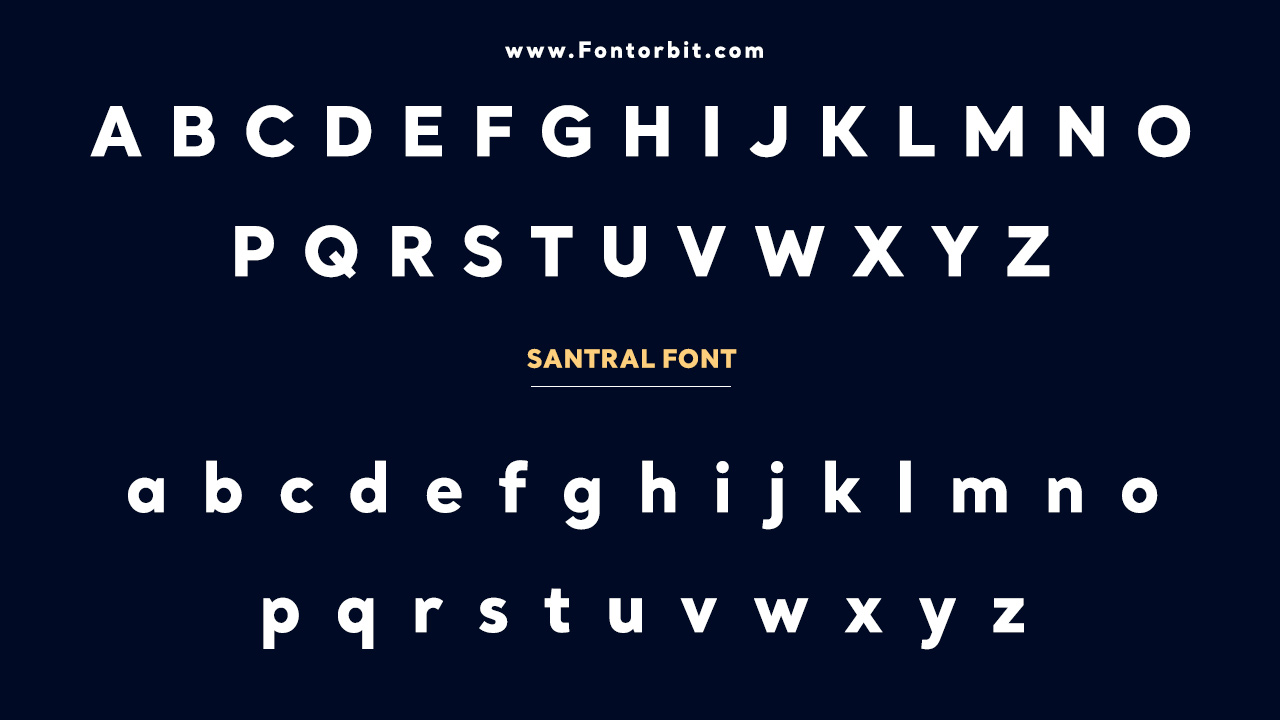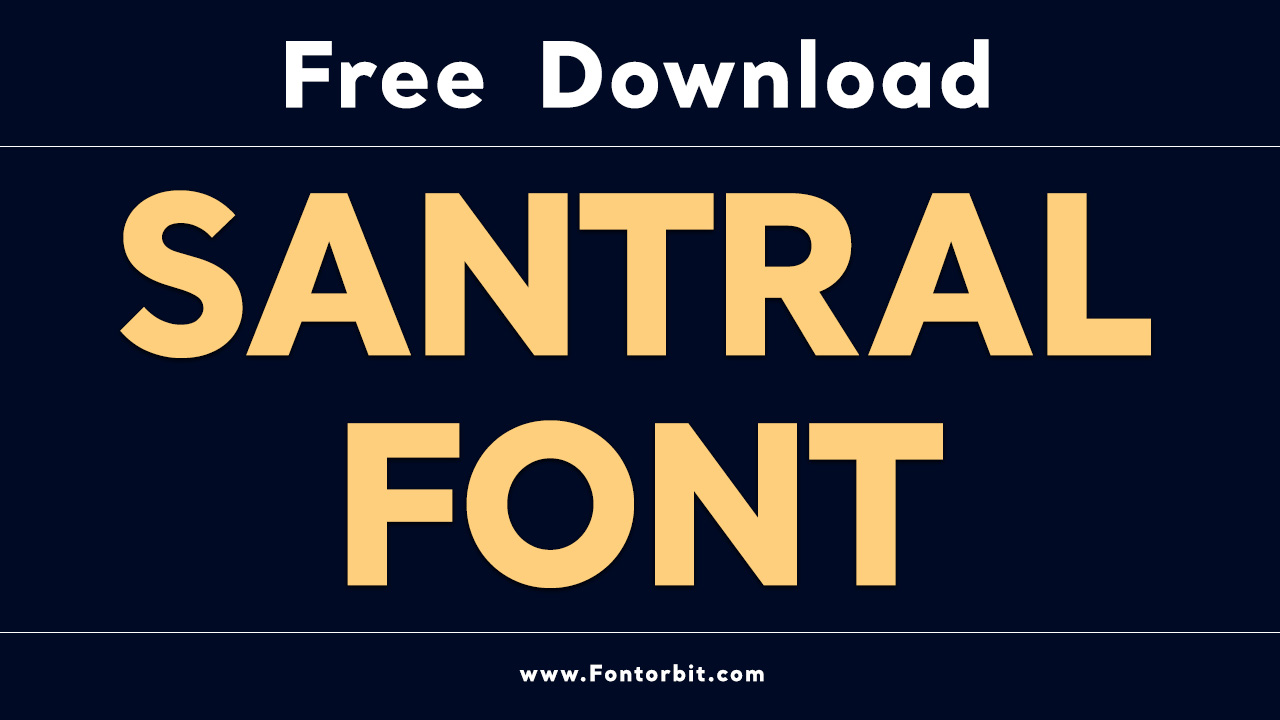
Santral is a modern geometric sans-serif font designed by Taner Ardali and released in 2017. It is part of a large family of weights, making it versatile for both digital and print design. Santral is known for its clean lines, simplicity, and functionality, making it suitable for professional and minimalistic design needs.
Santral Family Includes
The Santral font family is extensive, with over 20 styles available. The typeface ranges from light to ultra-bold weights and comes in italic versions, offering designers great flexibility for various design needs.
- Santral Ultra Italic
- Santral Black Italic
- Santral Black
- Santral Book
- Santral Bold
- Santral Bold Italic
- Santral Book Italic
- Santral Extra Bold Italic
- Santral Extra Light Italic
- Santral Extra Bold
- Santral Extra Light
- Santral Hairline
- Santral Hairline Italic
- Santral Light
- Santral Light Italic
- Santral Medium
- Santral Regular
- Santral Medium Italic
- Santral Regular Italic
- Santral Semi Bold
- Santral Semi Bold Italic
- Santral Thin
- Santral Ultra
- Santral Thin Italic
Notable Uses Of Santral
Santral’s clean and structured style makes it ideal for branding projects, logos, business cards, and user interfaces (UI). Its geometric shapes give it a modern yet timeless feel, suitable for both corporate and creative sectors. Designers often use Santral for tech branding, minimalistic websites, and sleek advertising campaigns.
Santral is well-suited for various professional and creative purposes due to its minimalist yet impactful design. It thrives in:
- Corporate branding
- UI/UX design
- Print materials
- Tech or startup logos
- Editorial headlines
- Digital interfaces
- Business presentations
- Branding materials
- Posters and billboards
Santral stands out for its flexibility across both digital and print mediums. Its geometric sans-serif structure makes it a great choice for modern branding, user interfaces, and other professional design projects. The broad family of styles ensures it can adapt to various design needs, from headlines to body text.
1.Can I Use Santral For My Logo?
Yes, Santral’s clean and professional design is perfect for logo creation.
2.What Is The Best Use Of Santral?
Santral is ideal for corporate branding, UI/UX design, and print materials.
3.How Many Styles Does The Santral Font Family Include?
The family includes over 20 styles with italics, from light to ultra-bold.
4.Is Santral Good For Web Design?
Yes, its geometric shapes and clean lines make it great for web design and user interfaces.
5.Is Santral Suitable For Print Materials?
Absolutely, its range of weights and styles makes it versatile for print.
6.What Fonts Are Similar To Santral?
Montserrat, Poppins, and Raleway are similar geometric sans-serif fonts.